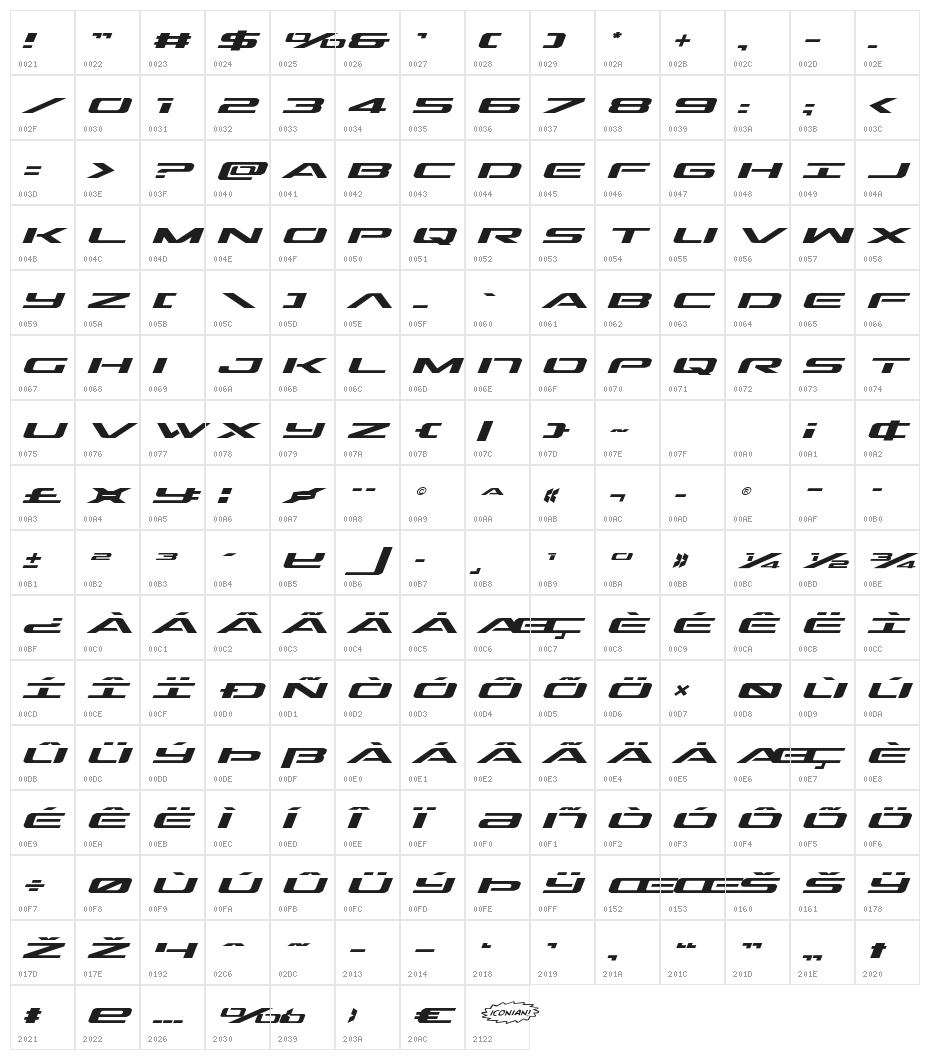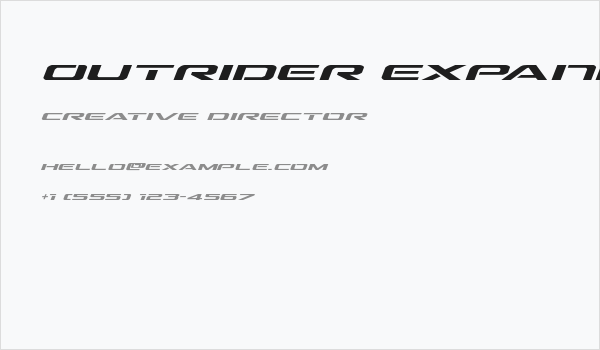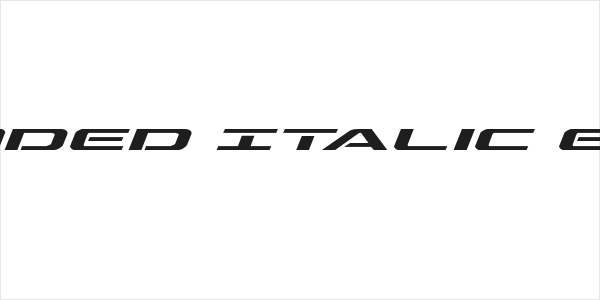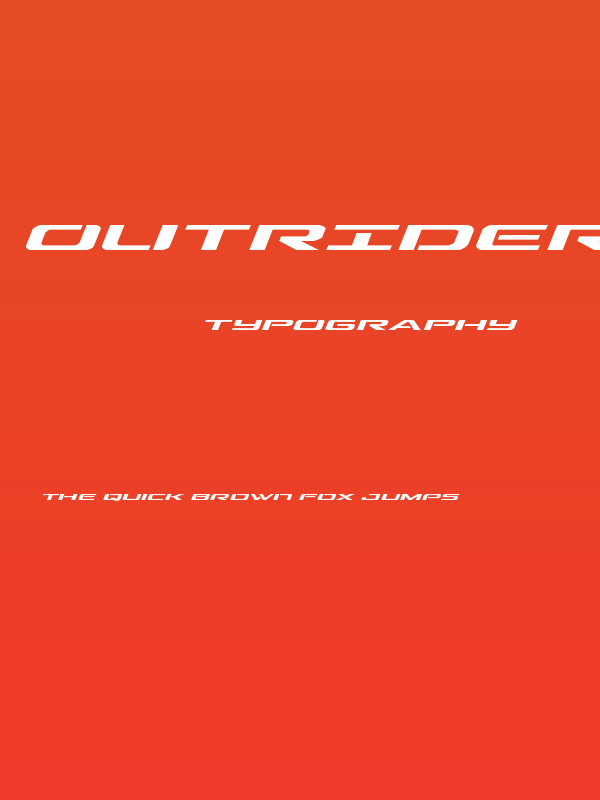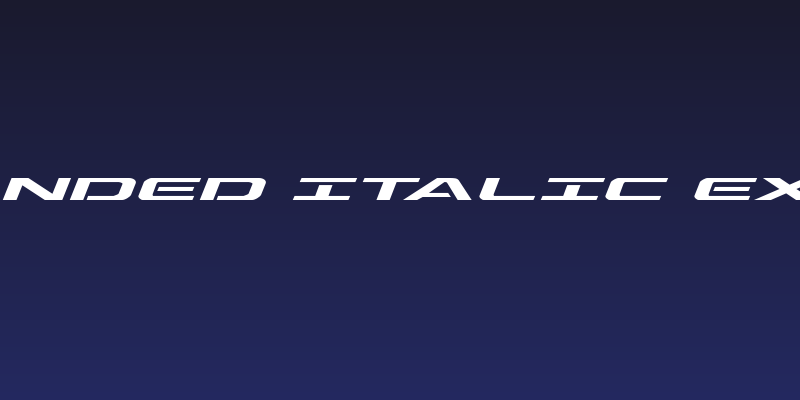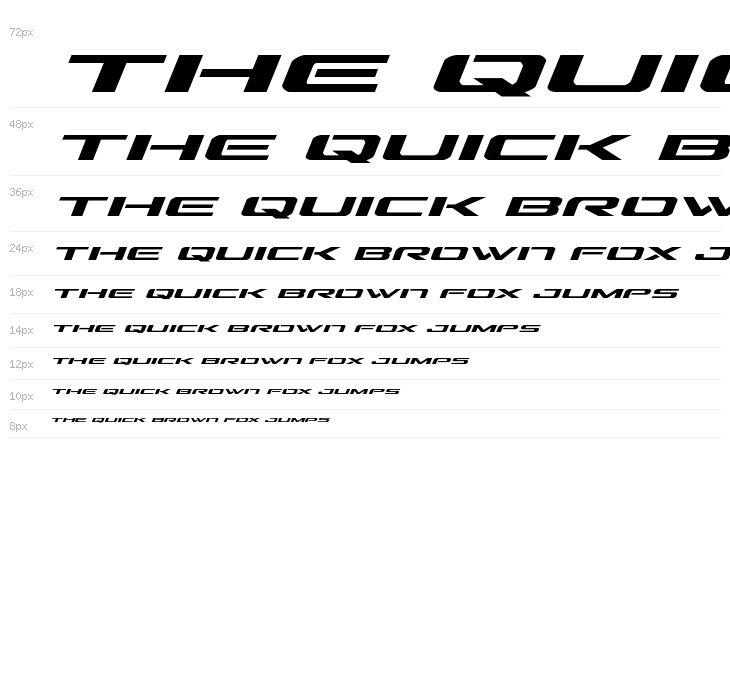
Outrider Expanded Italic Font
Outrider Expanded Italic Description
This font features a dynamic and futuristic design with an italicized and expanded style. The characters are sleek and angular, giving a sense of motion and speed. The uppercase and lowercase letters maintain a consistent slant, enhancing the italic effect. Numbers and special characters are designed to match the overall aesthetic, with sharp edges and a modern look. The expanded width of the characters provides a bold presence, making it suitable for attention-grabbing headlines or branding materials. The font's unique style is ideal for projects that require a contemporary and energetic feel.